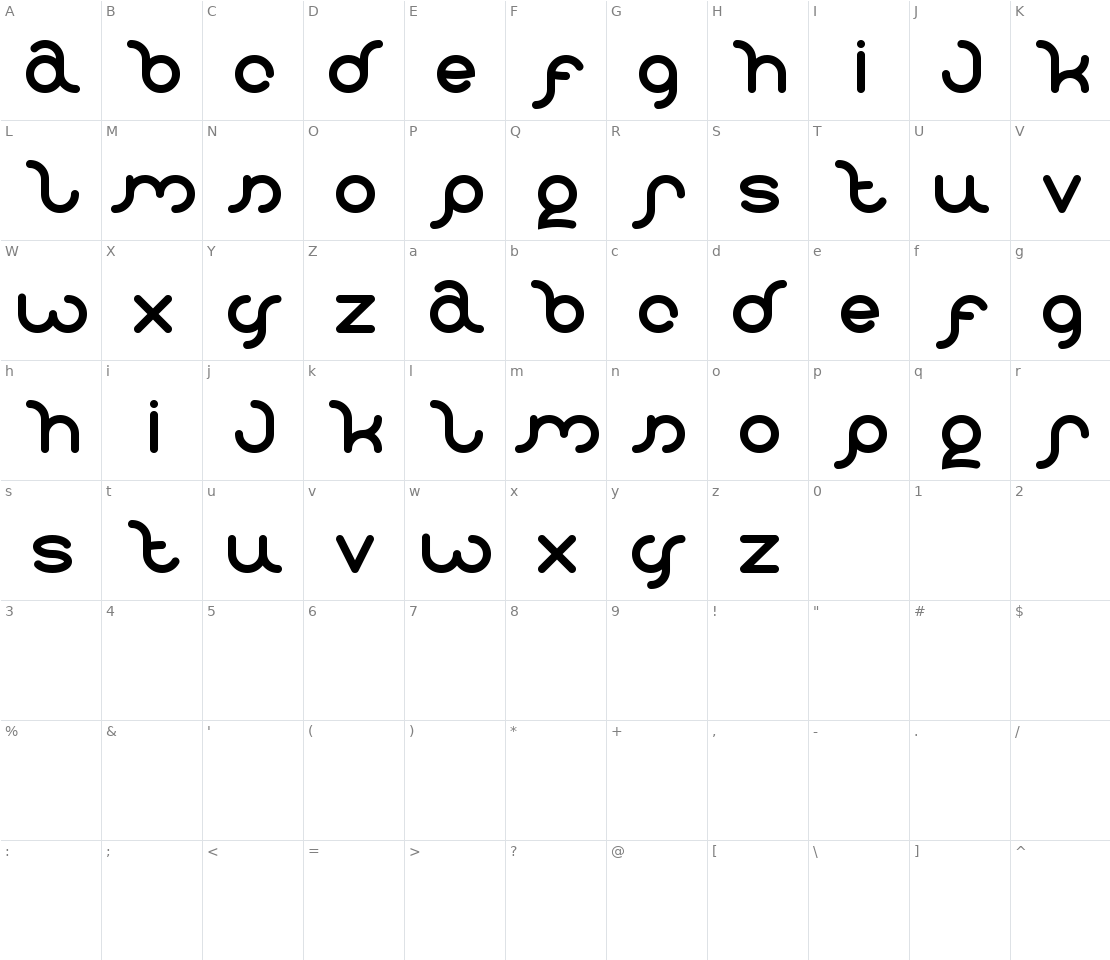
Polysoup
Polysoup is a bold, rounded geometric display face from weknow that manages to feel both futuristic and slightly offbeat. The letterforms have a bubbly, inflated quality softened by smooth curves, but the geometric structure keeps things grounded in tech territory rather than drifting into pure novelty. It works well for headlines, branding, and UI elements where you want something modern with a little personality baked in.